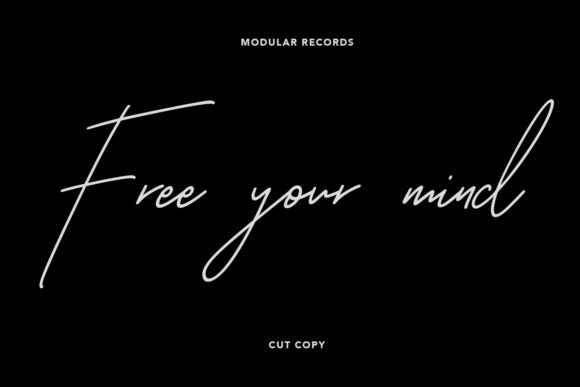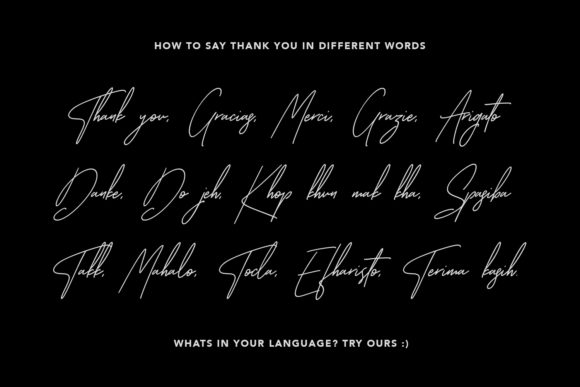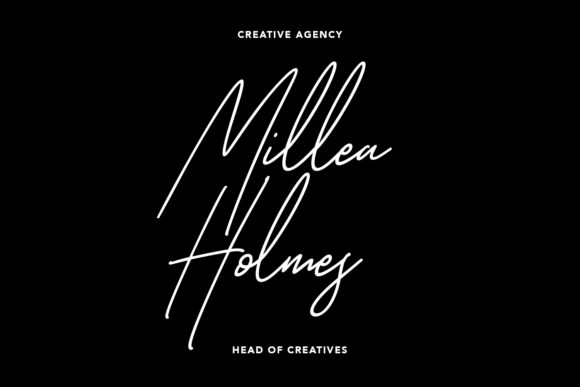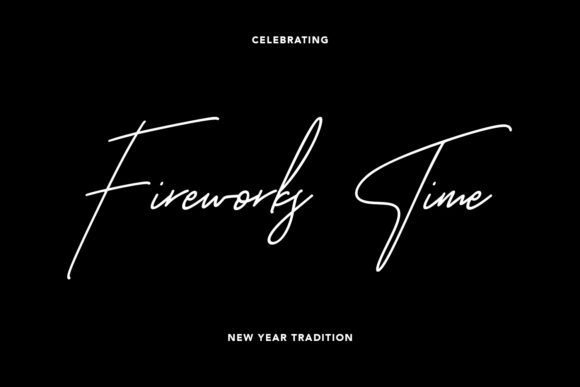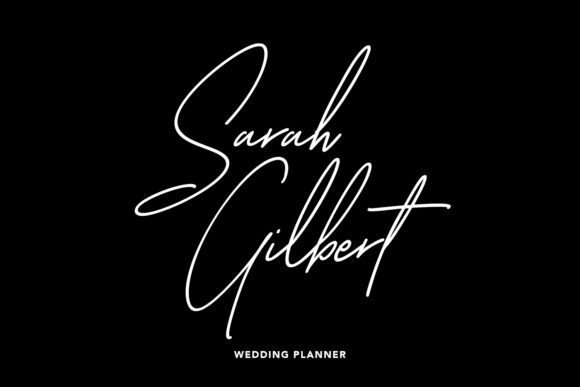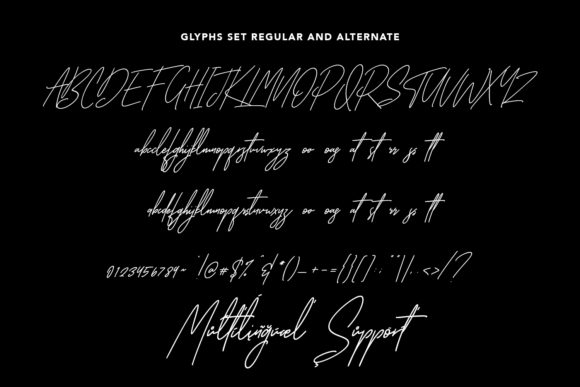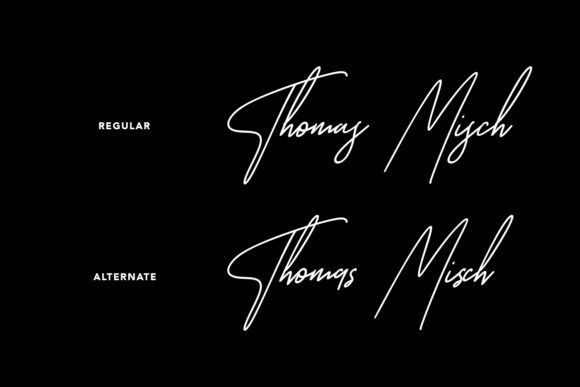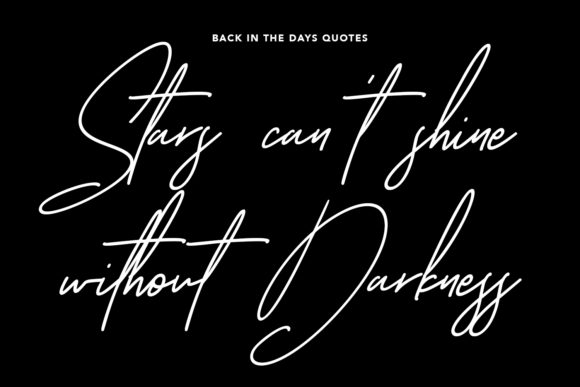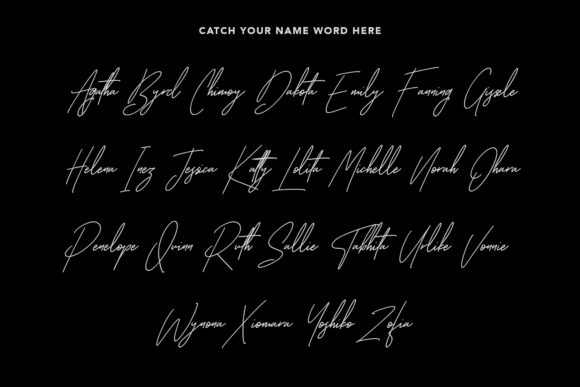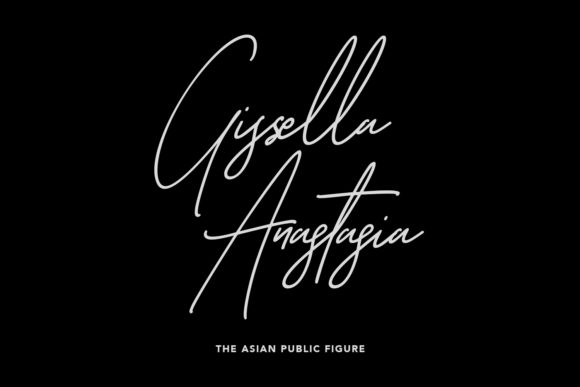
Boardsky Font
About Boardsky Font
“Boardsky” sounds like a modern and elegant handwritten font that exudes sophistication and simplicity. With its clean and stylish appearance, this font is perfect for adding a touch of elegance to your various craft designs.
By using “Boardsky” in your designs, you can achieve a sense of modernity and beauty. Its handwritten style adds a personal and artistic touch, making your creations feel more refined and captivating.
This font’s modern and elegant nature makes it suitable for various craft design contexts. Whether you’re working on branding, logos, invitations, greeting cards, posters, or any other project, “Boardsky” can effortlessly enhance the visual appeal and create a beautiful and stylish atmosphere.
With “Boardsky,” you have a font that adds a touch of sophistication and simplicity, making your craft designs visually stunning and captivating.
Incorporate “Boardsky” into your designs, and you’ll see how it brings a sense of beauty and refinement, making your creations truly exceptional and aesthetically pleasing.
While embracing the modern and elegant vibe of “Boardsky,” remember to maintain readability and legibility. Proper spacing and alignment between letters ensure that the text remains clear and easy to read, preserving the font’s overall sophistication and stylish charm.
In conclusion, “Boardsky” is a modern and elegant handwritten font that adds a touch of beauty to your craft designs. Embrace its clean and stylish appearance, and let it be the font that enhances the modernity and elegance of your branding, logos, invitations, greeting cards, posters, and other creative projects. With “Boardsky,” your craft designs will exude sophistication and captivate the hearts of your audience, making them truly exceptional and visually captivating.